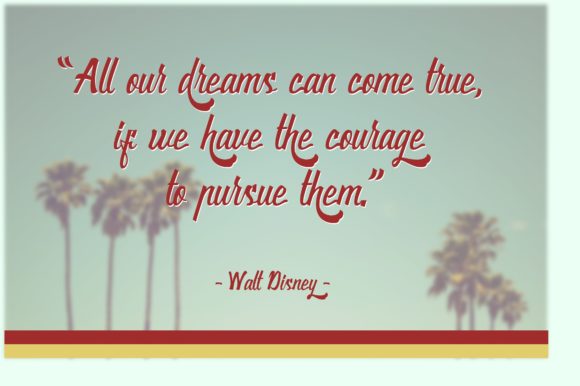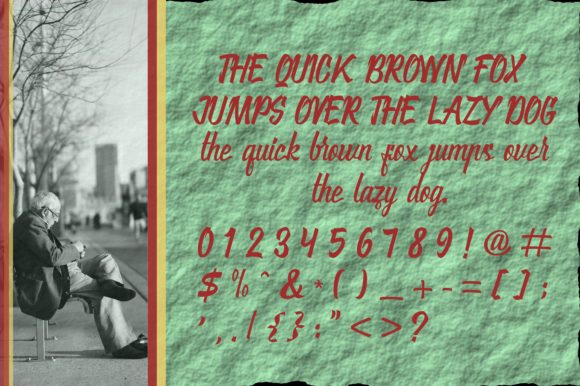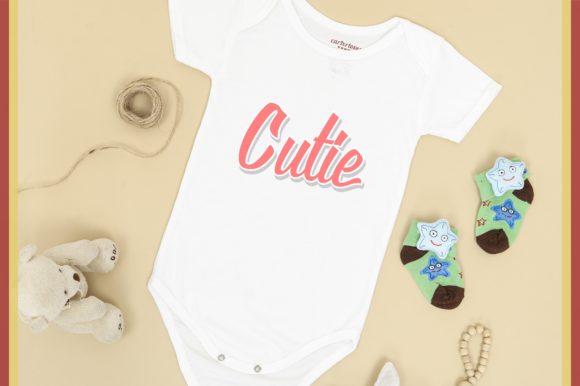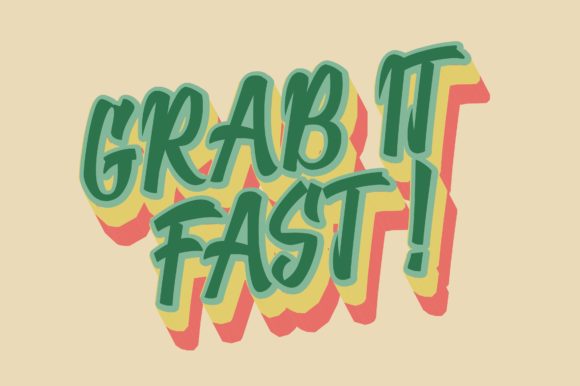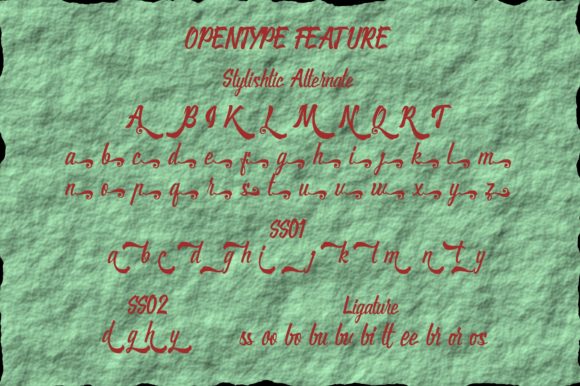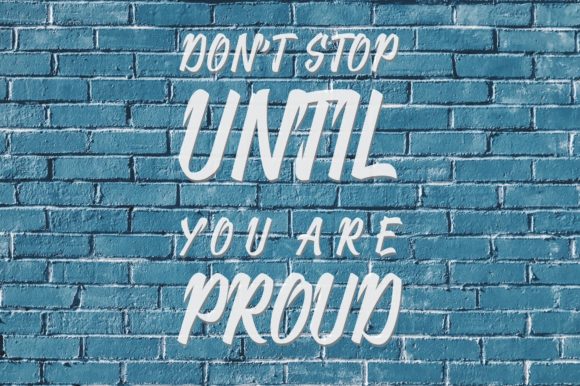
Introduction to Qucluck Font
Qucluck is a great retro styled script font.
Clean and a little bit quirky, this font is the perfect fit for all of your logos, branding, social media, apparel, and more Qucluck is PUA encoded which means you can access all of the glyphs and swashes with ease.